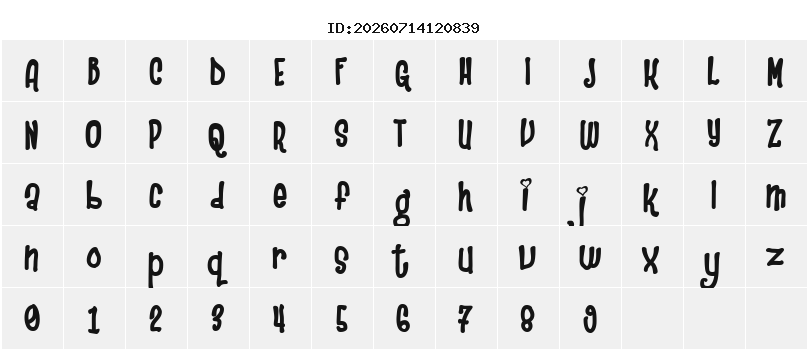
Heartbreaker Preview
• Font Name: Heartbreaker
• Full Font Name: Heartbreaker
About Heartbreaker.ttf
Heartbreaker.ttf is a modern, elegant sans-serif font designed for ultimate readability and visual harmony. Perfect for branding, headlines, web design, and print materials.